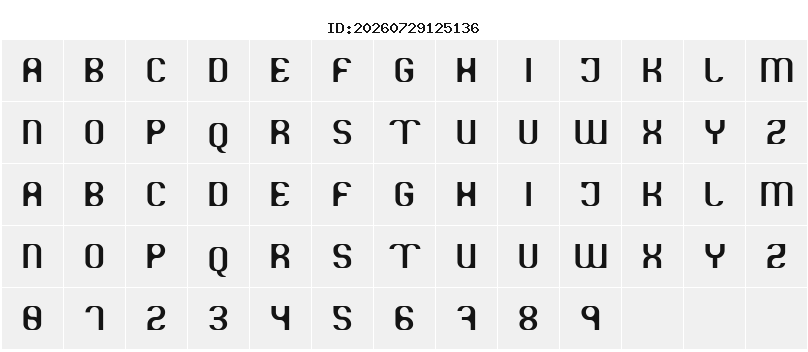
• Font Name: Kryogenic
• Full Font Name: Kryogenic
About Kryogenic.ttf
Kryogenic.ttf is a modern, elegant sans-serif font designed for ultimate readability and visual harmony. Perfect for branding, headlines, web design, and print materials.